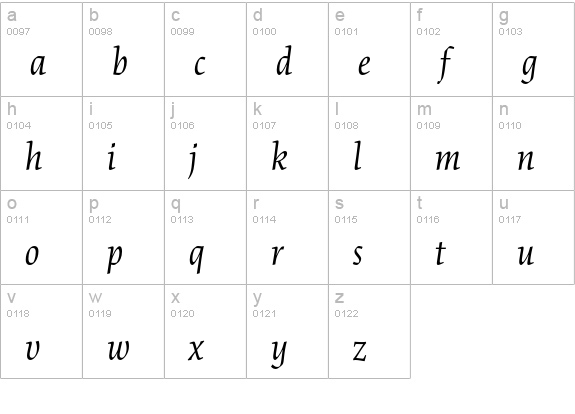
Cartier Book Std Italic Font Details
Cartier Book Std Italic is a comfortable, highly readable, italic variant in the Cartier typeface family \xE2\x80\x94 well suited to long-form body text, articles, and editorial content.
The Cartier Book Std Italic font exudes elegance and sophistication with its graceful italic style. This font is perfect for adding a touch of luxury to any project, whether it be for invitations, branding, or editorial design. The delicate curves and flowing lines of Cartier Book Std Italic create a sense of refinement and beauty that will elevate your designs to new heights. What's even better is that Cartier Book Std Italic is available for free download at FontsMarket.com. This means you can easily access this premium font without any cost, making it a valuable addition to your font collection. Don't miss out on the opportunity to enhance your projects with the timeless beauty of Cartier Book Std Italic. Download it today and see the difference it can make in your designs.